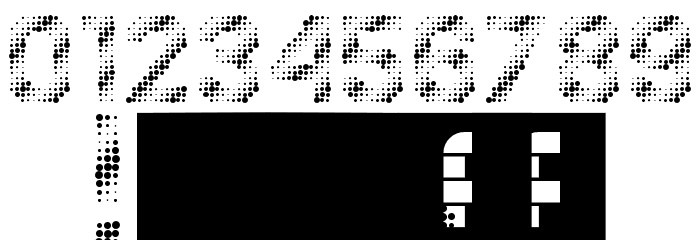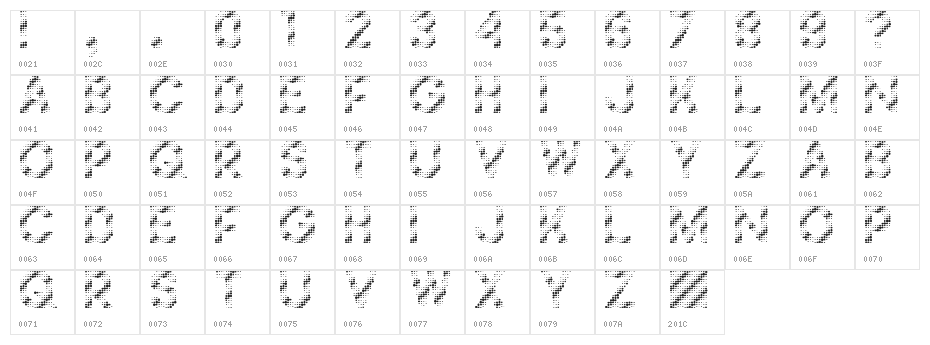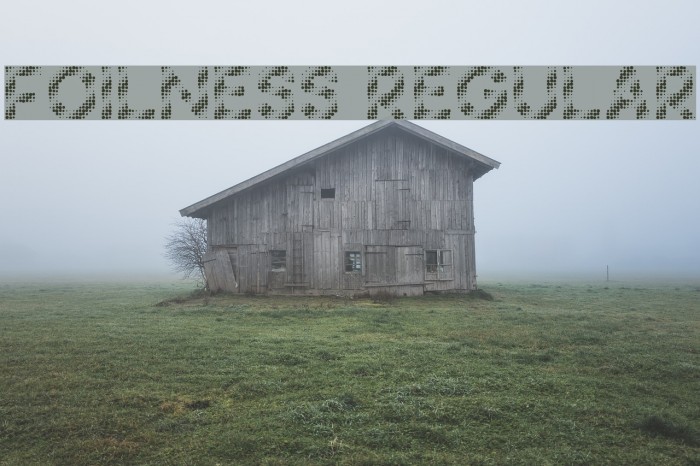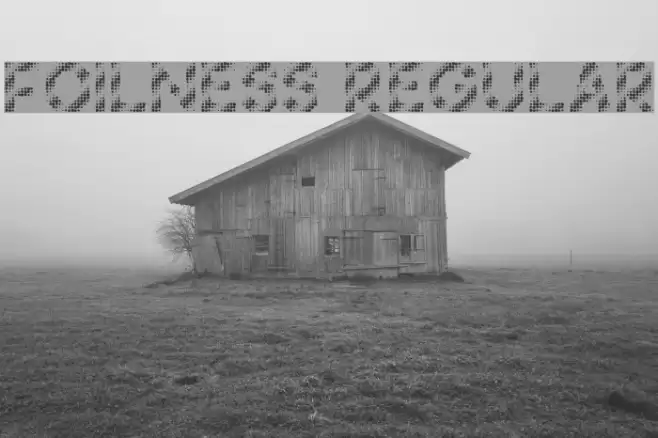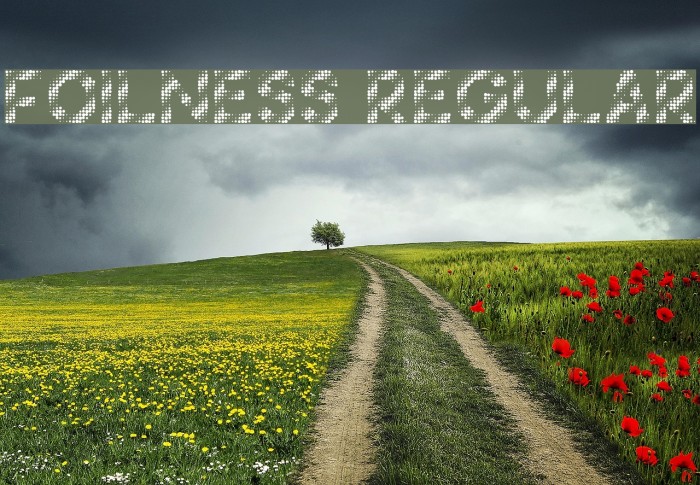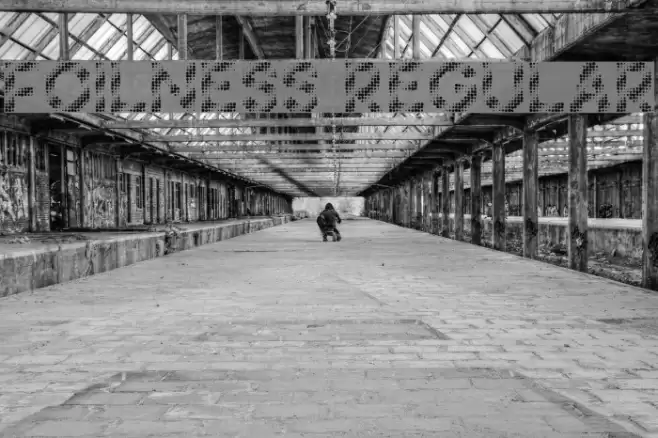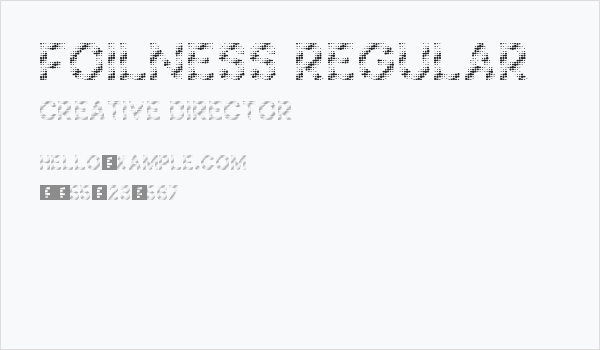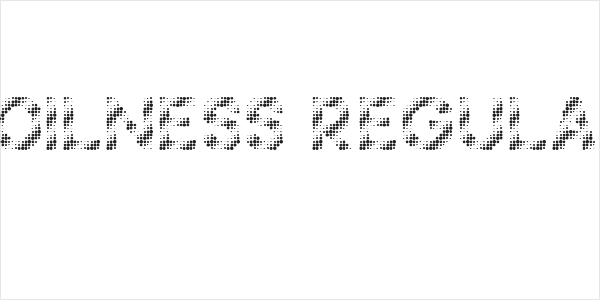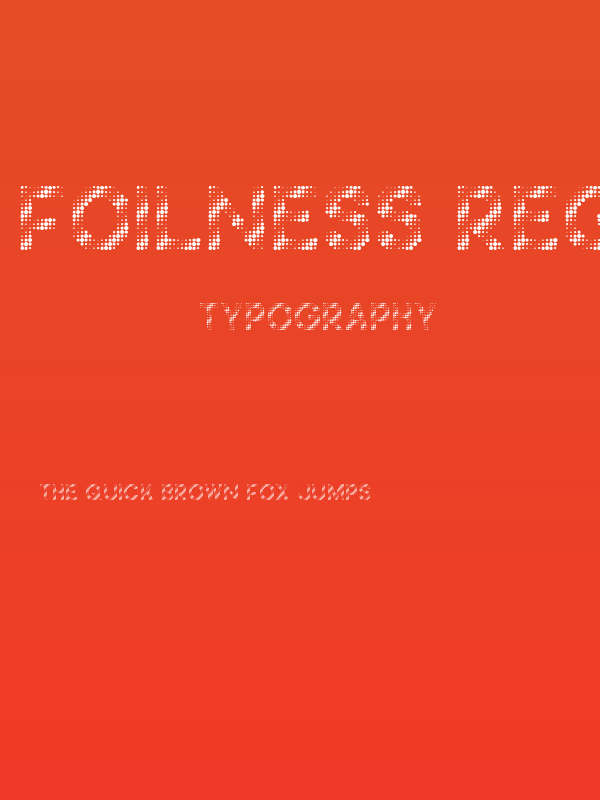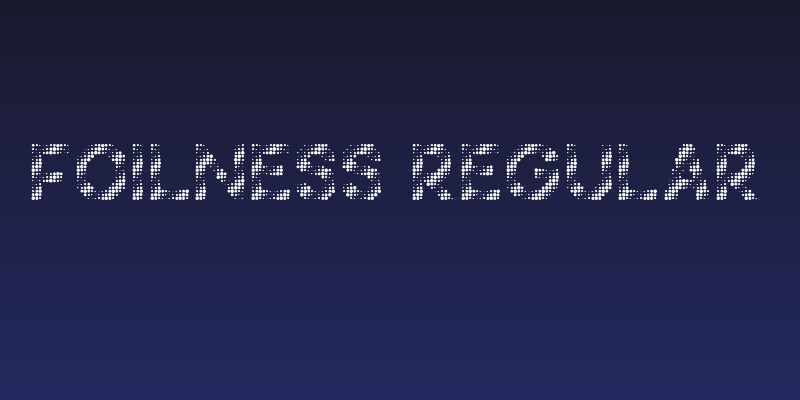
Foilness Regular Font
Foilness Regular Description
This font features a unique and modern design, characterized by its dotted pattern that forms each letter and number. The dots are evenly spaced, creating a cohesive and visually interesting texture. The uppercase and lowercase letters maintain a consistent style, with rounded edges and a geometric feel. The numbers and special characters follow the same design principles, ensuring uniformity across all elements. This font is ideal for projects that require a contemporary and eye-catching look, such as digital art, posters, or branding materials.
| Proposed Projects | Ideal for digital art, posters, branding, and any project needing a modern, eye-catching font. |